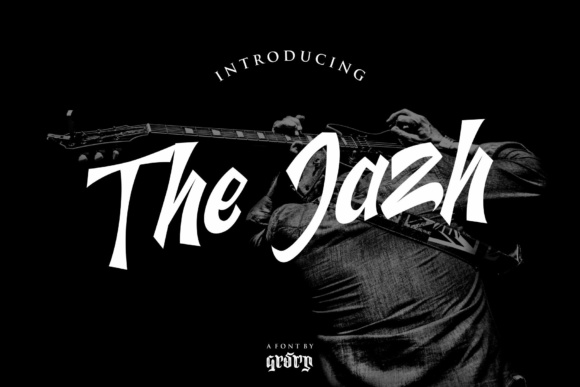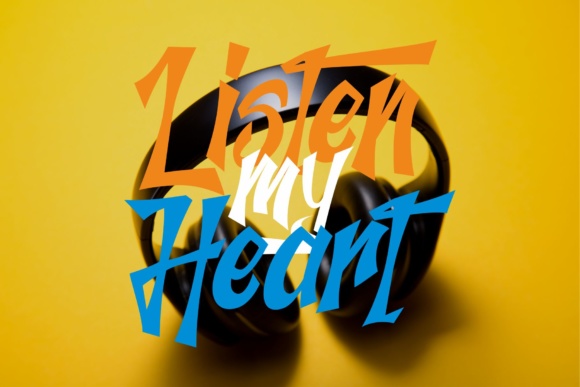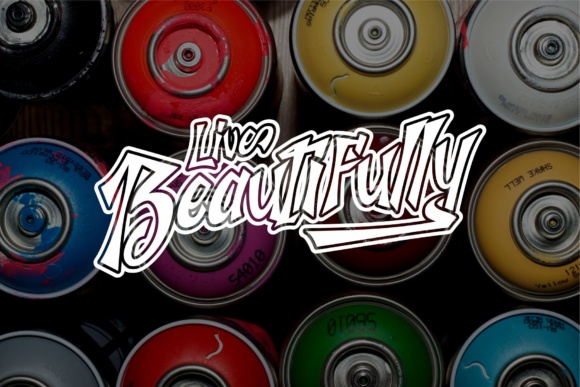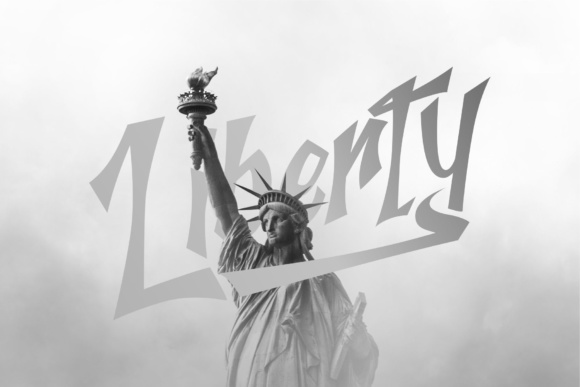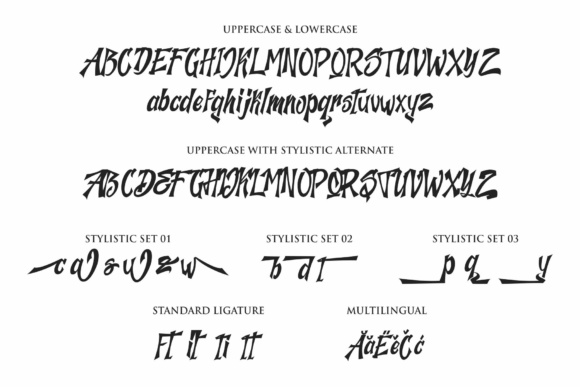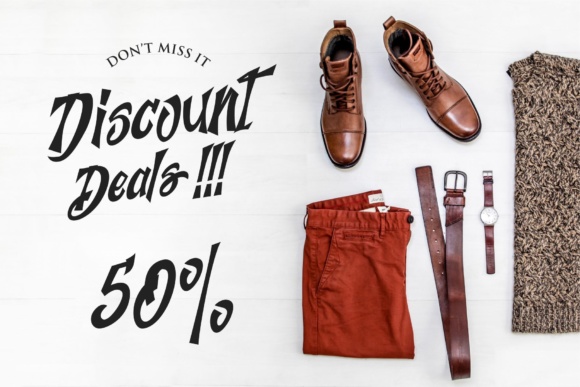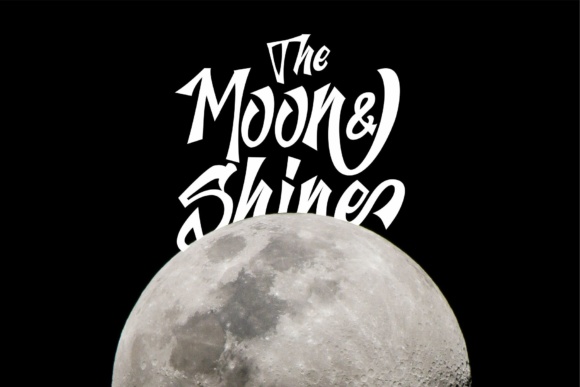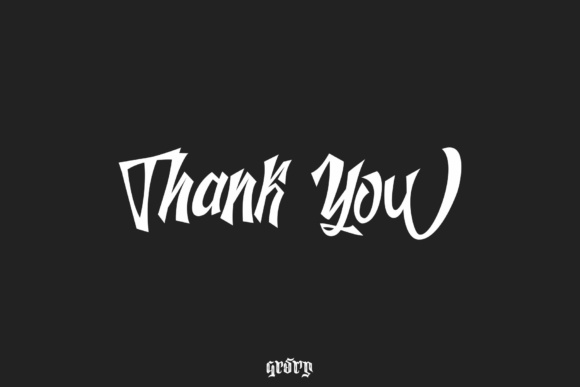
The Jazh Font
About The Jazh Font
The Jazh is a font with a firm and modern writing style. Can be used for all types of designs such as branding projects, logos, wedding designs, social media posts, advertisements, product packaging and much more!